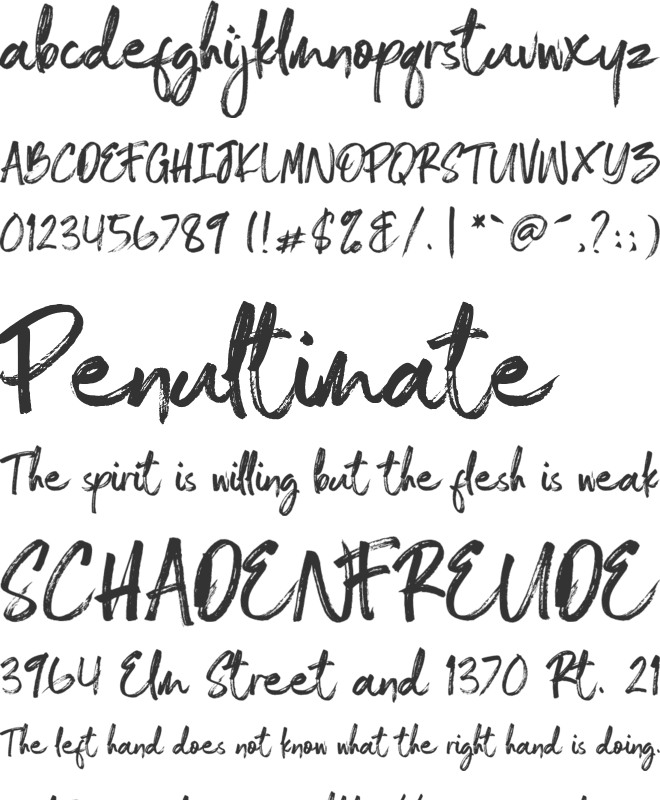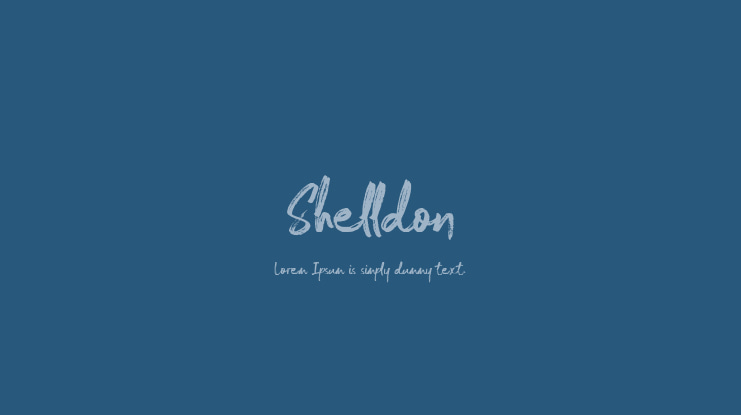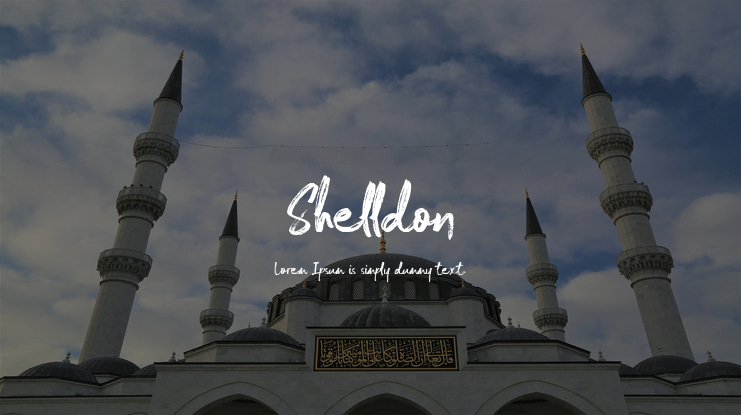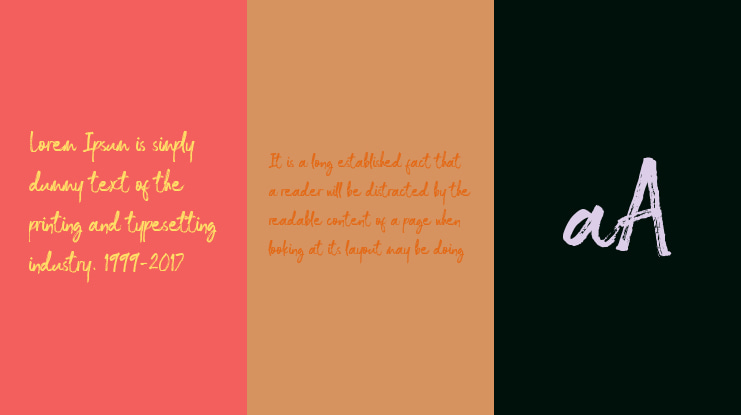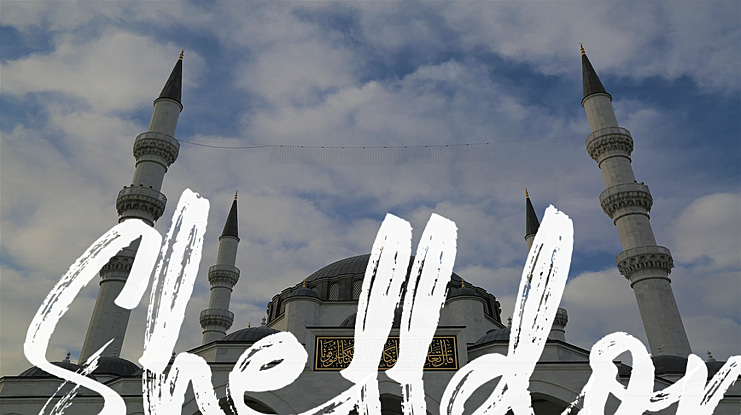
Introducing: Shelldon! A rustic, dapper handwritten font with a personal charm. With quick dry strokes and a signature style, Shelldon is perfect for branding projects, homeware designs, product packaging - or simply as a stylish text overlay to any background image.
1. Shelldon • A handwritten script font containing upper & lowercase characters, numerals and a large range of punctuation.
2. Shelldon Alternate • This is a second version of Shelldon, with a completely new set of both lower and uppercase characters. If you wanted to avoid letters looking the same each time to recreate a custom-made style, or try a different word shape, simply switch to this font for an additional layout option.
3. Shelldon Swash • A set of 26 hand-drawn swashes, the perfect finishing touch to underline your Northwell text. Simply install this as a separate font, select it from your font menu and type any A-Z character to create a swash. ·
Ligatures • Are also available for several lowercase characters (double-letters which flow more naturally). These are only accessible via software with opentype capability or a glyphs panel, e.g. Photoshop/Illustrator.